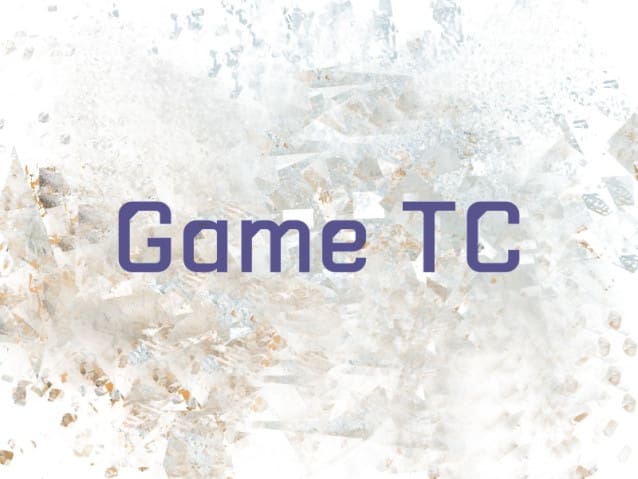
Game TC Font
Game TC Font is a futuristic font, a font inspired by the visual of technology that we can find from logo, sci-fi movies, games, and the present gadgets. Designed with minimalist style and unique letterforms, a perfect choice to use on logos, labels, posters, packaging, books, movies, presentations, games, and much more!